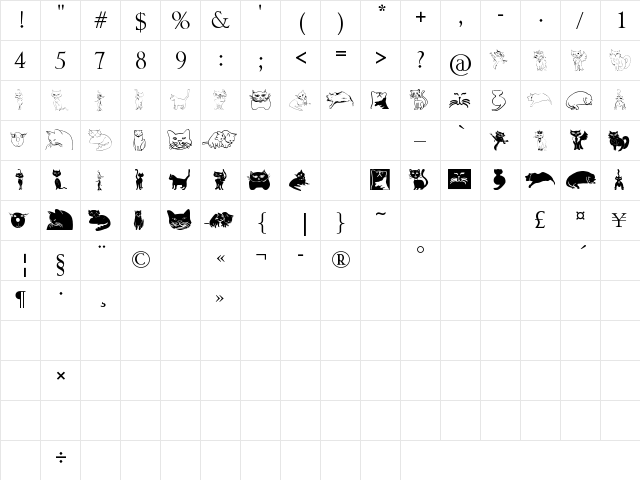
CatCrypt Regular
Design Context for CatCrypt Typeface
CatCrypt is a composed and adaptable typeface that performs quietly and consistently across a wide range of design contexts.